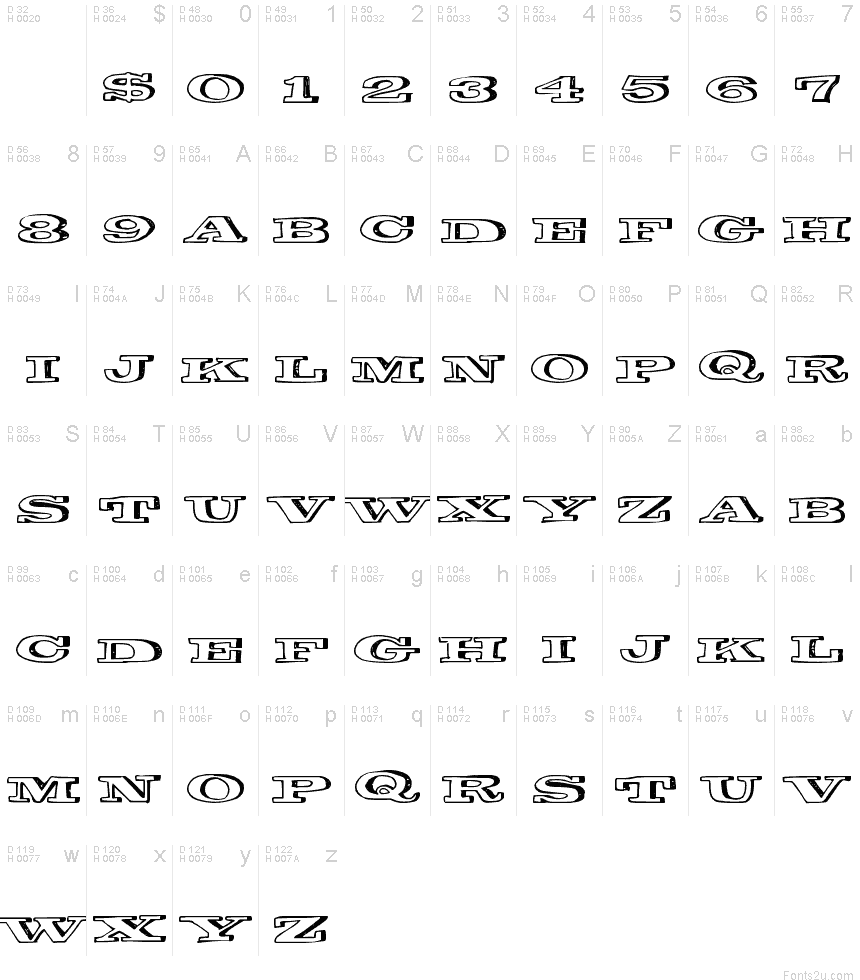
Comic Shadow from Xerographer Fonts is a free comic display font with broad slab serifs and a rough, hand-inked outline. Its uneven contours keep the large letter shapes lively rather than mechanically squared off. Small black offset marks tuck against the edges, suggesting a loose cut-paper shadow.
As an illustrated title treatment, it can turn lettering into a drawn emblem on comic covers, theatrical event posters, playful merchandise, and novelty packaging. The broken shadow motif echoes cartoons and retro fairground graphics.
Comic Shadow from Xerographer Fonts is a free 3D display font.